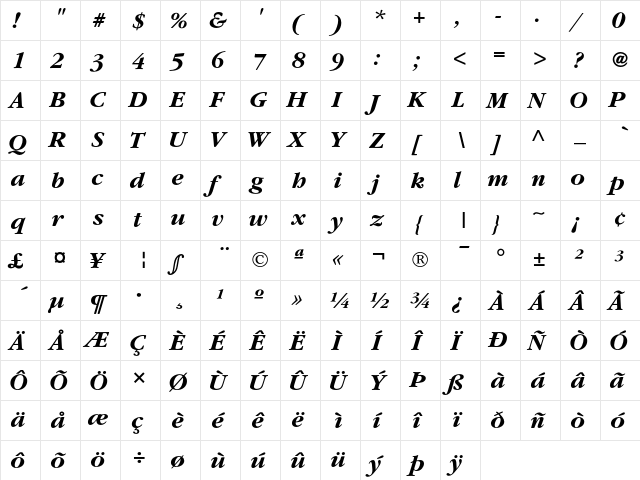
ITC Garamond Bold Italic
Design Context for ITC Garamond Typeface
ITC Garamond is a composed and adaptable typeface that performs quietly and consistently across a wide range of design contexts. Its italic angle brings a sense of urgency and motion to the letterforms. The heavy weight commands attention and anchors typographic hierarchies.
Pro Tip: Try ITC Garamond for annotation and caption copy alongside an upright companion — the contrast in angle creates a dynamic but ordered typographic system.